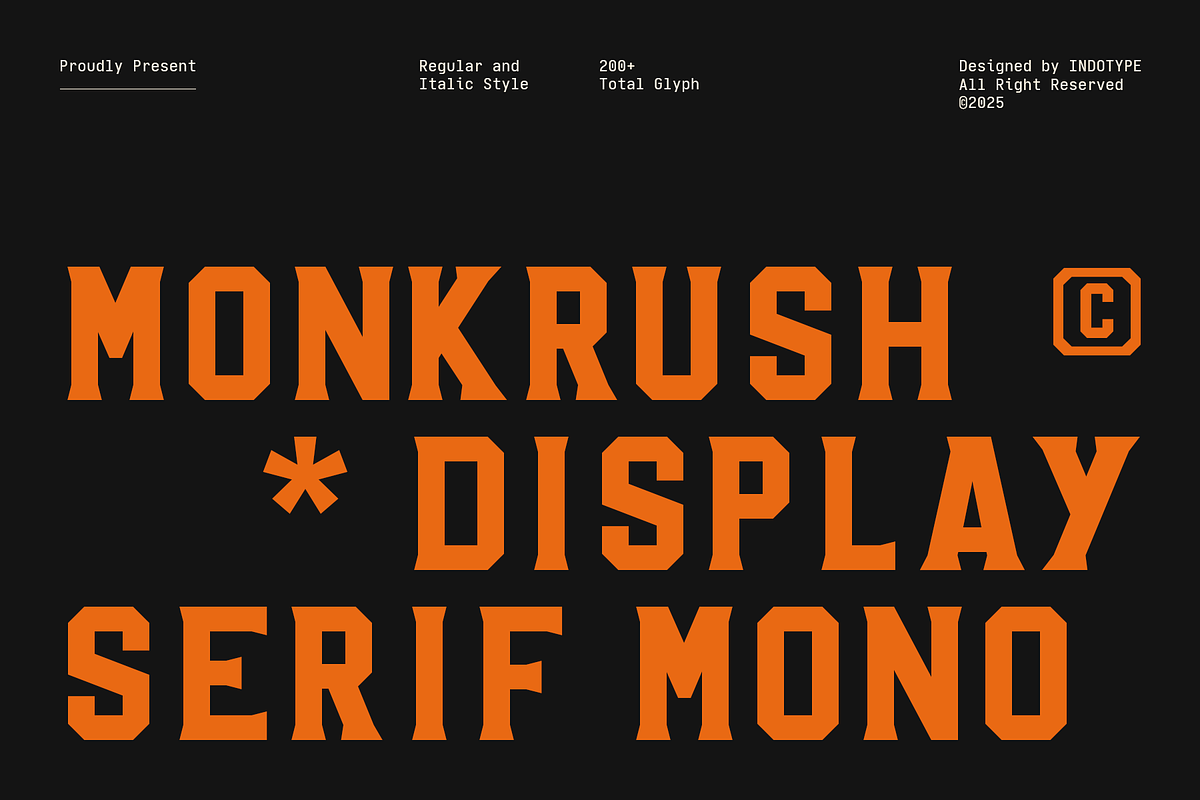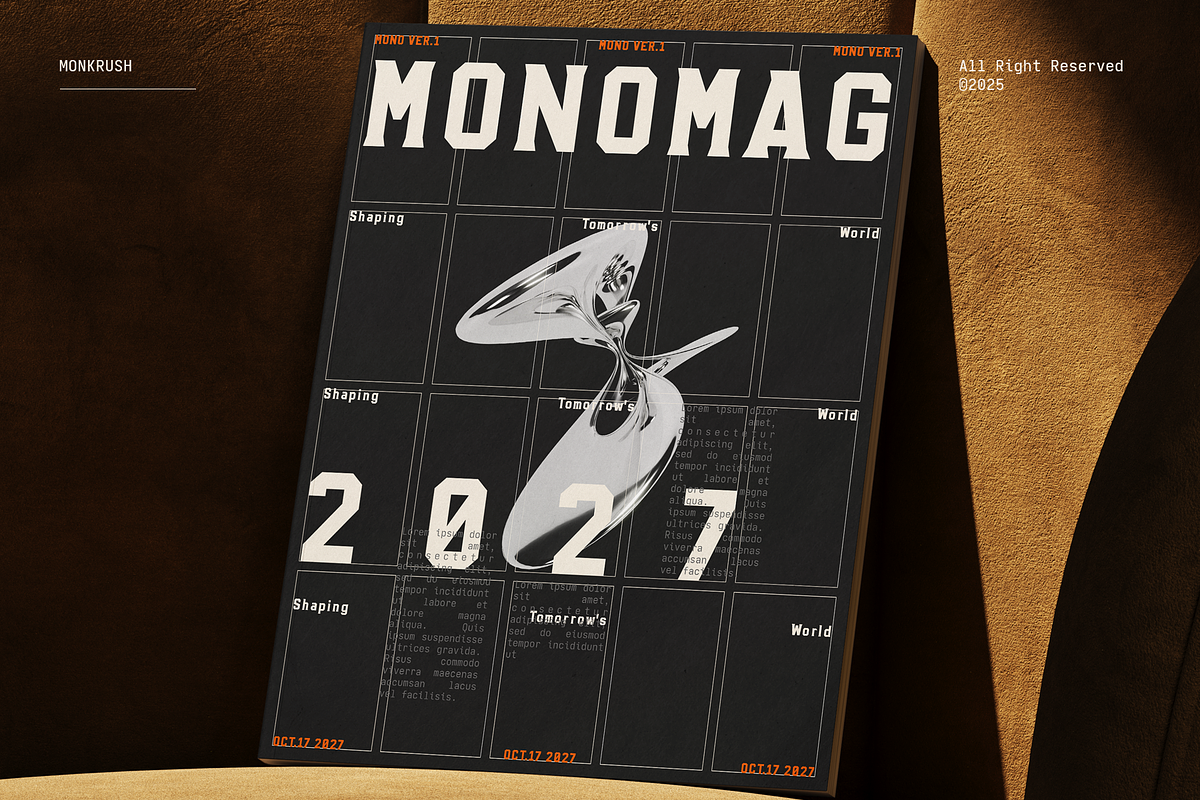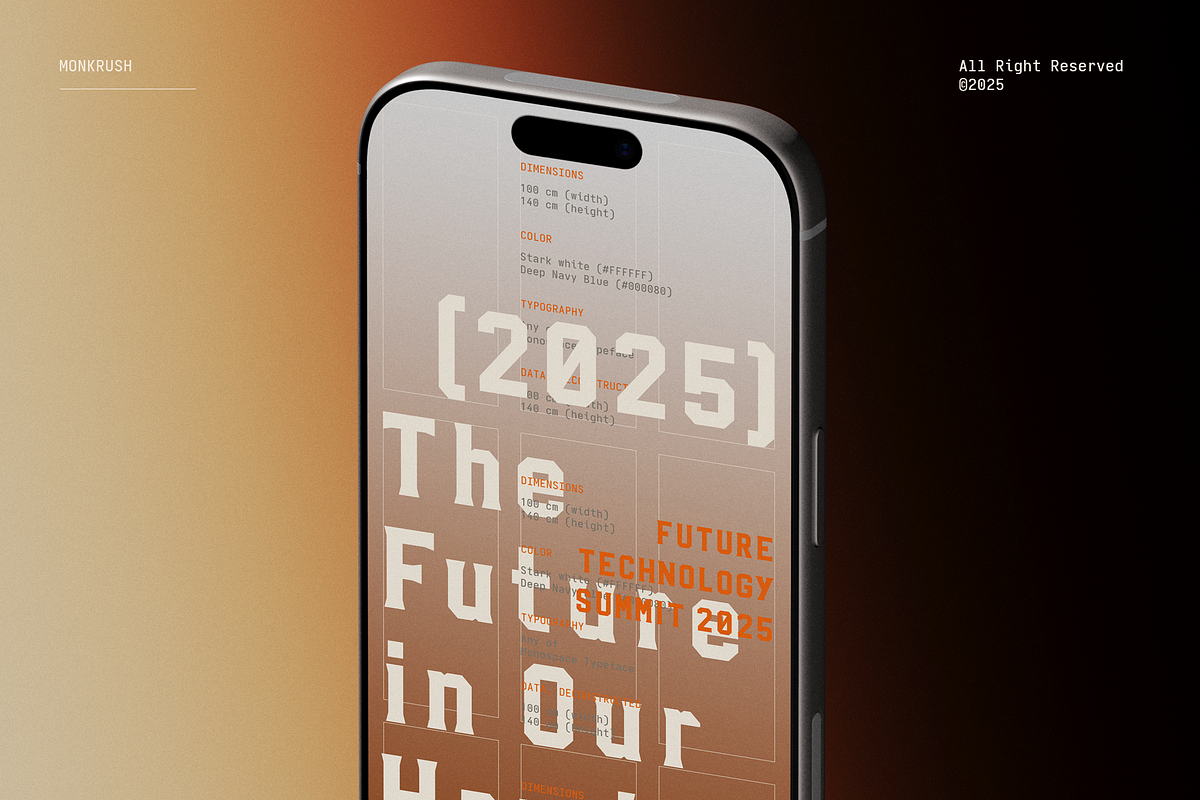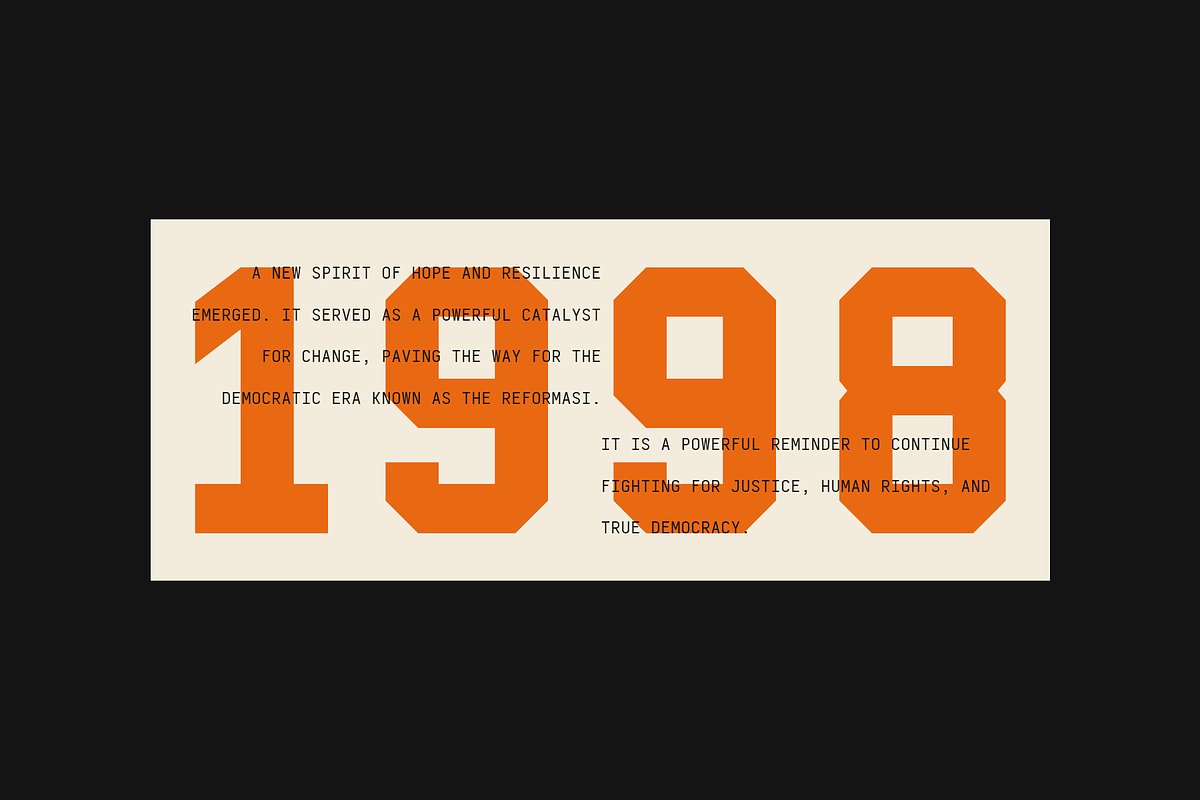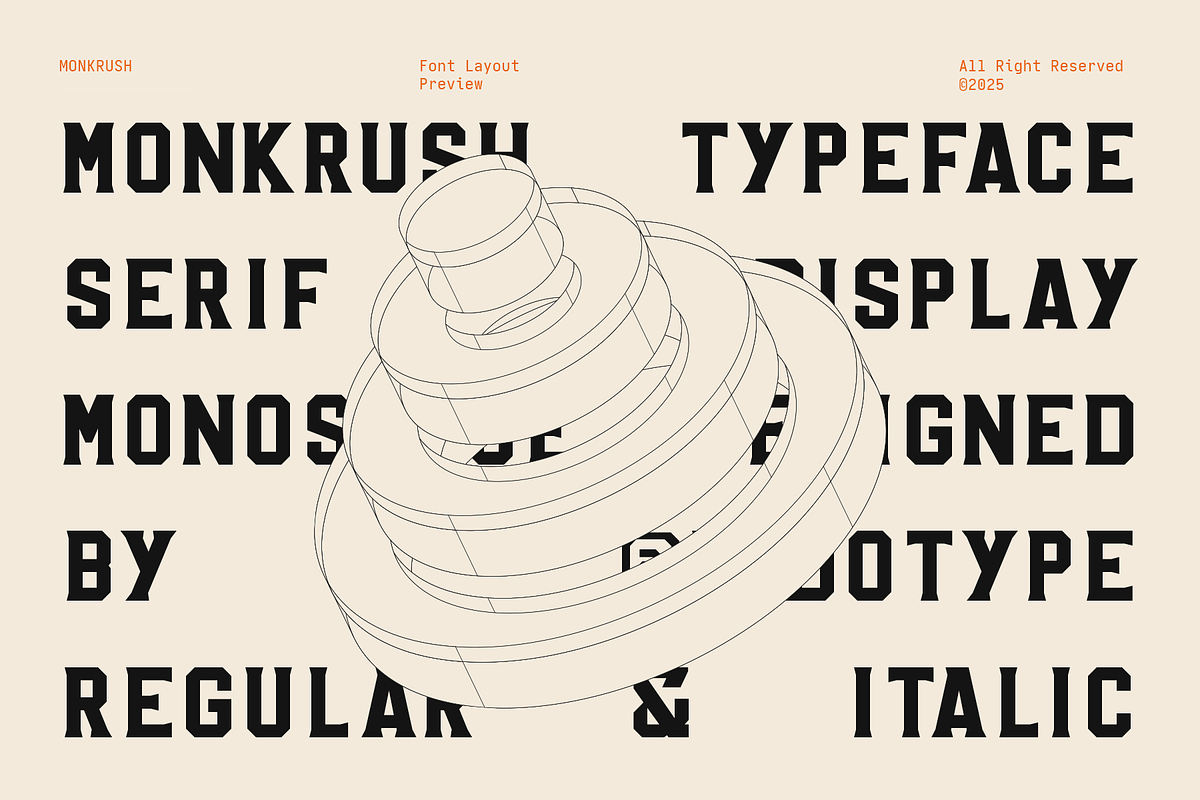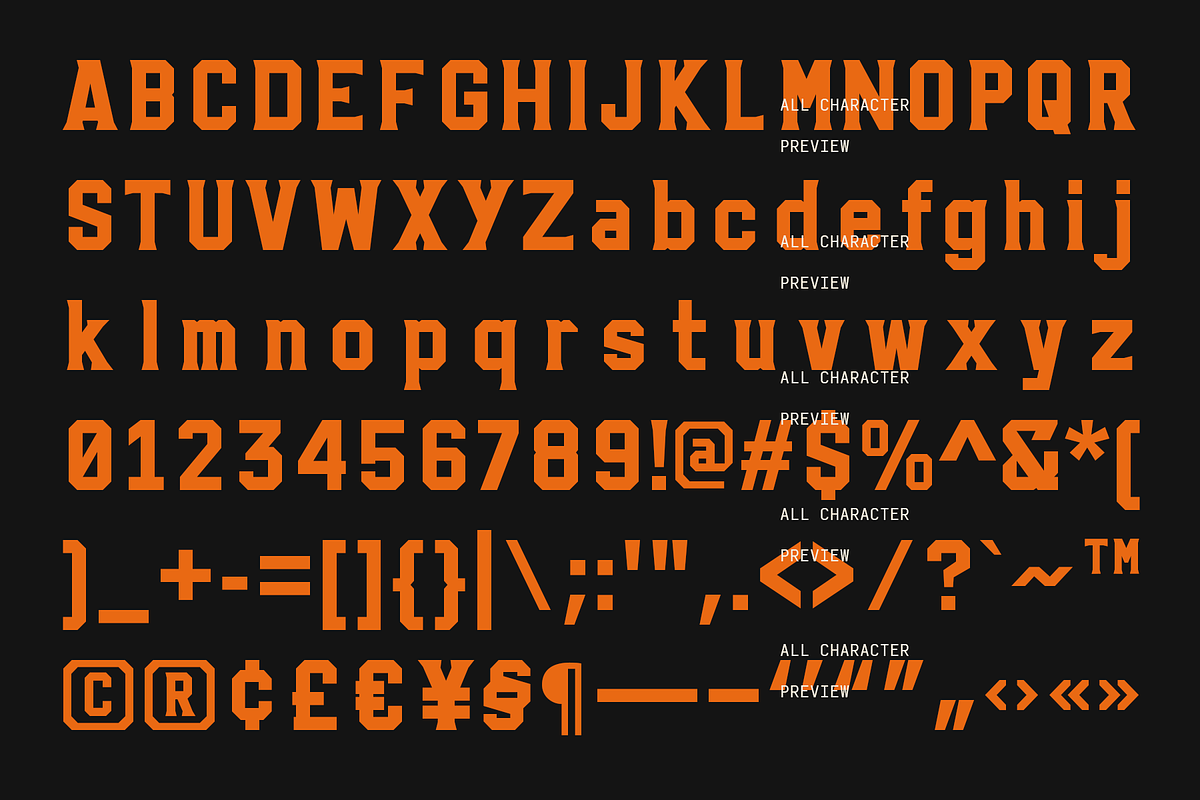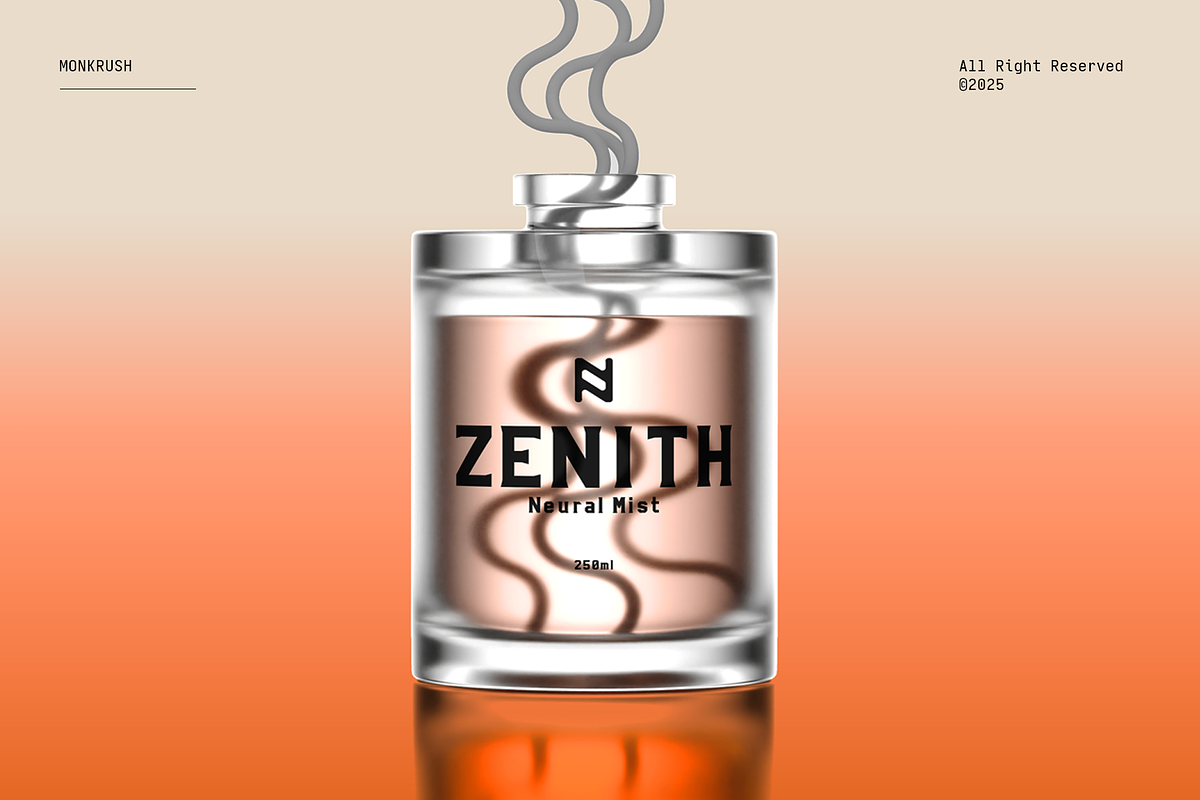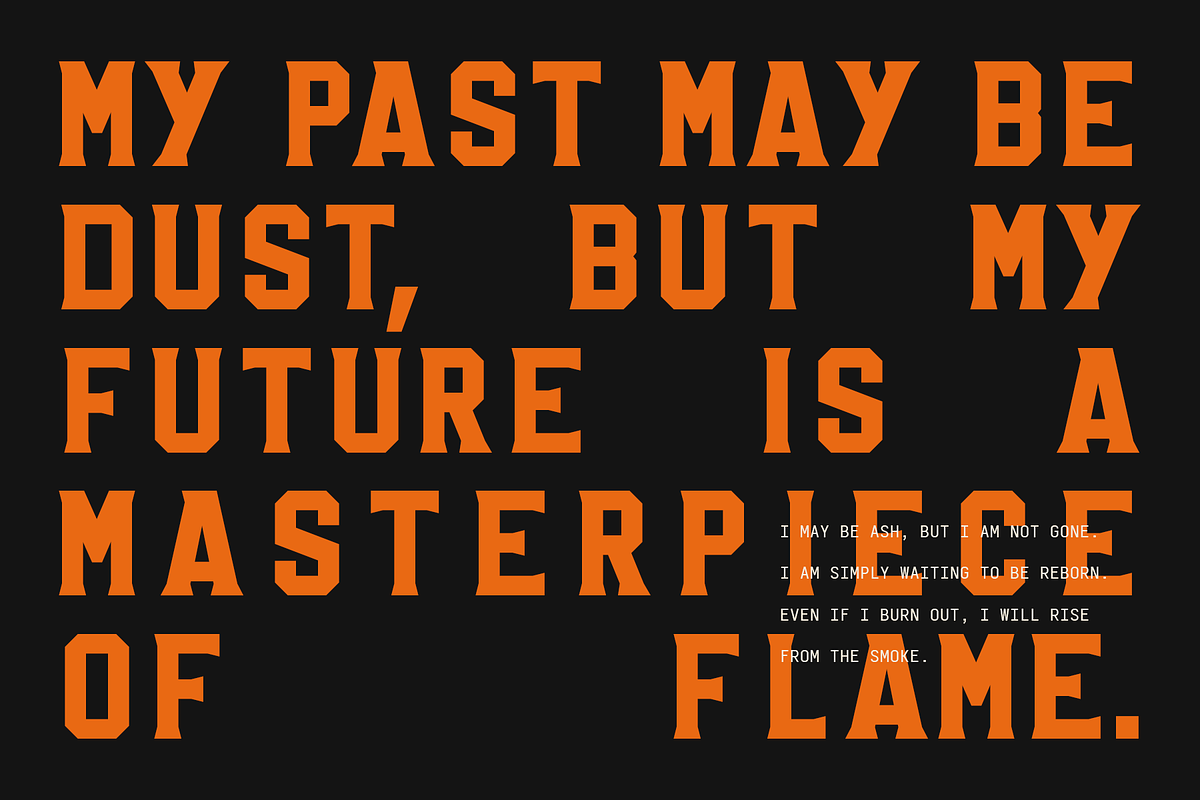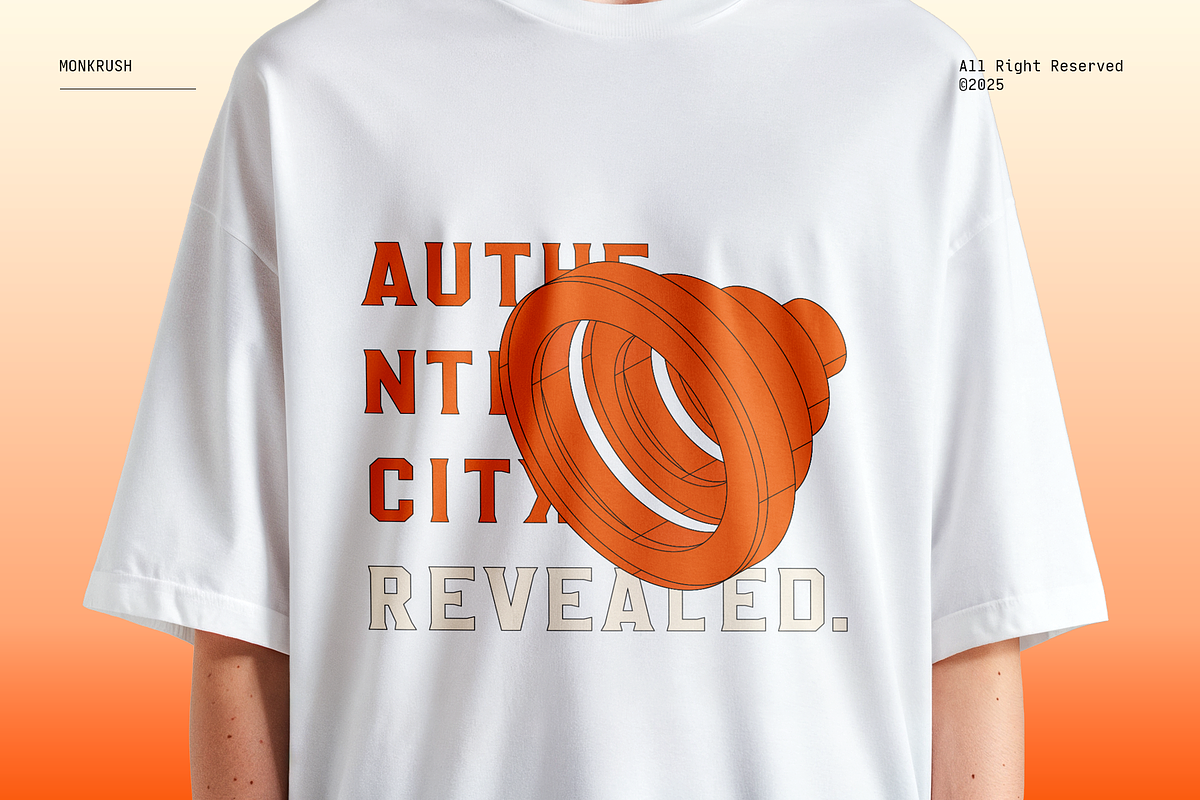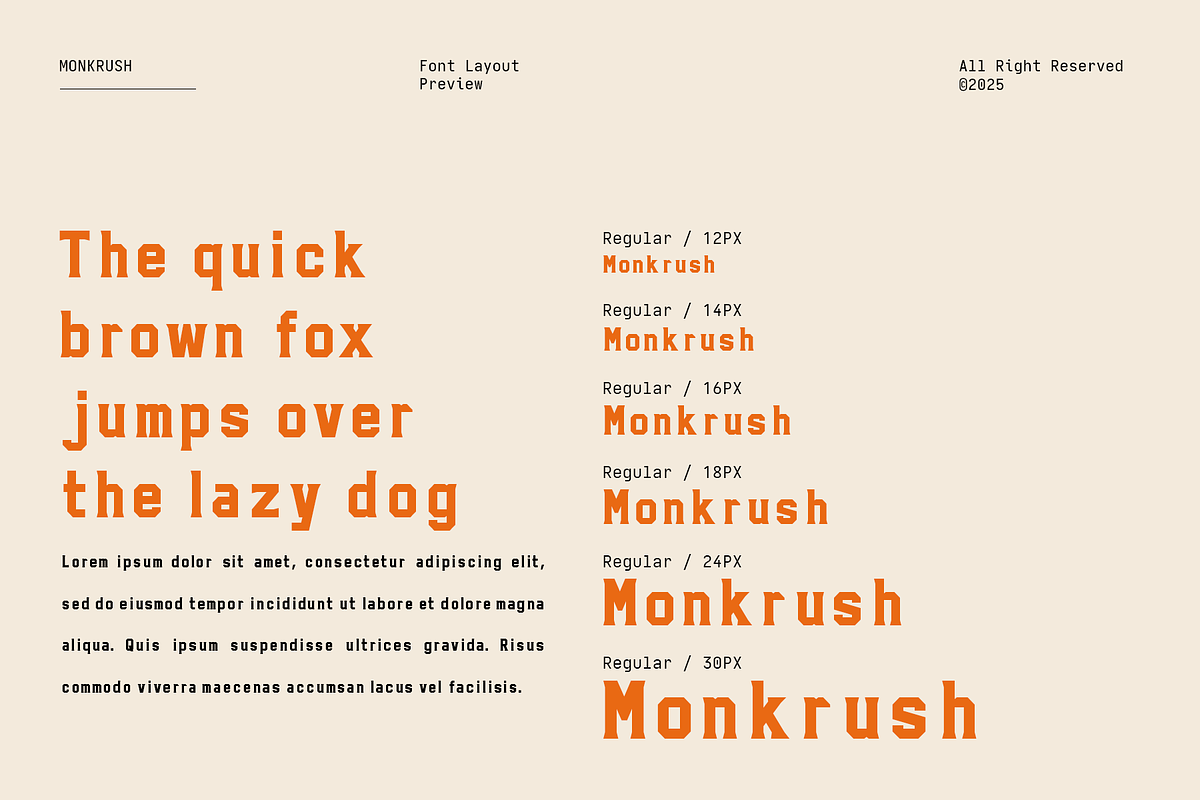
Monkrush - Display Serif Mono
Monkrush is a display serif mono font that fuses the precision of a monospaced grid with the bold authority of vintage industrial design. Every letter is meticulously shaped with geometric strength and angular serifs, giving Monkrush a sharp, disciplined look that stands out in headlines, posters, and logos. With its regular and italic styles and over 200 glyphs, Monkrush delivers flexibility while maintaining consistent width for every character — perfect for coding-inspired layouts, bold titles, or mechanical branding concepts. The combination of rigid monoline construction and solid serif details creates a distinct typographic rhythm that feels both structured and daring. Published by Indotype in 2025, Monkrush is ideal for projects that require a technical, confident, and futuristic typographic personality. From sports branding to digital interfaces, this typeface commands attention with a tone that’s both modern and timelessly industrial.